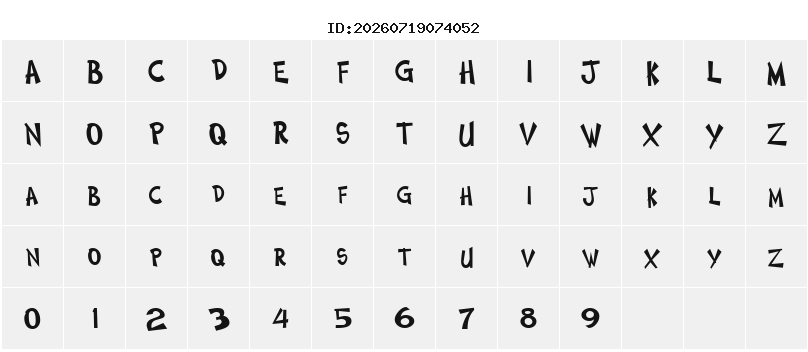
• Font Name: ComicType
ComicType.ttf is a modern, elegant sans-serif font designed for ultimate readability and visual harmony. Perfect for branding, headlines, web design, and print materials.